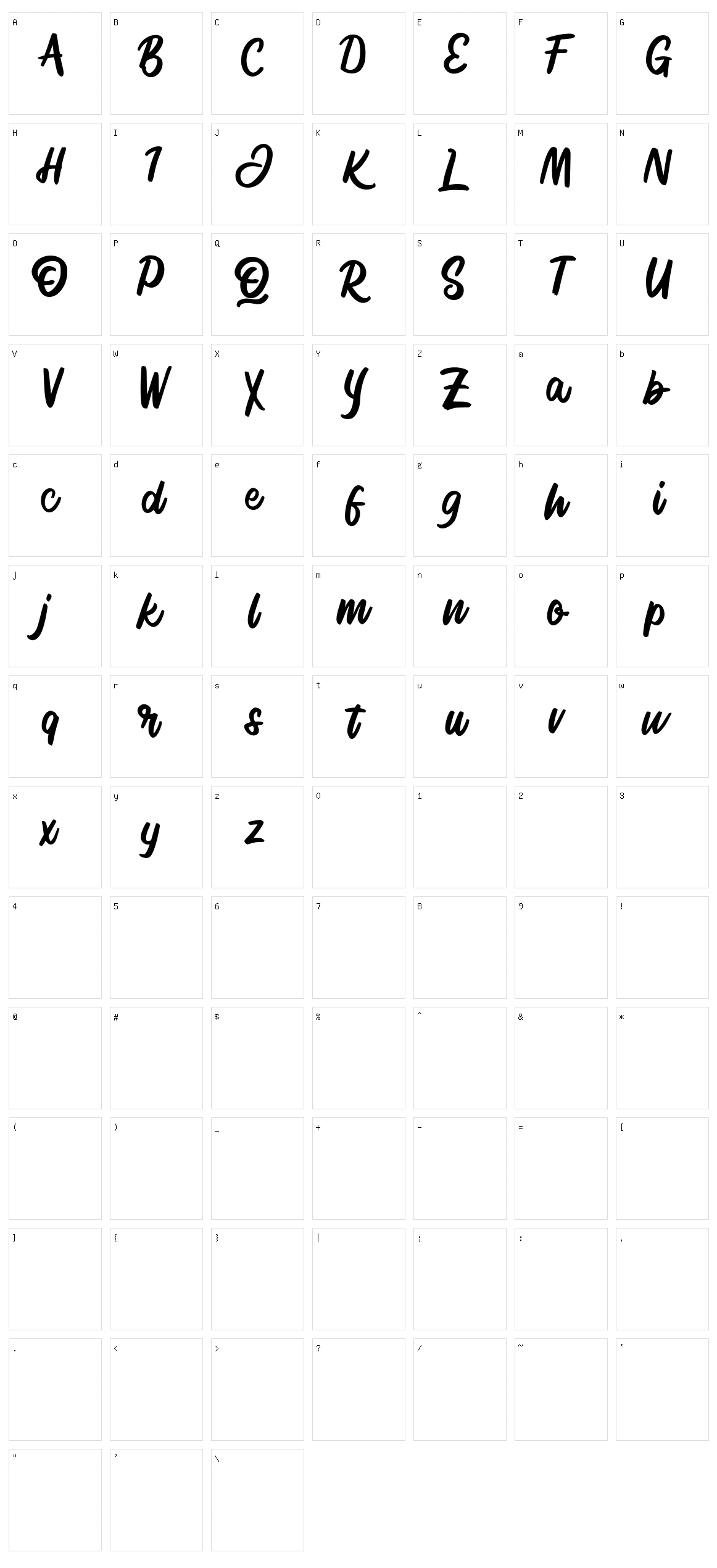
The free font Signlia is carefully designed by Vunira Design, showcasing a thoughtful balance of creativity and usability and falls under the Script font style. When you download the ZIP file, it contains only 41.57 KB of font files, making it lightweight and quick to download. Please review the license details below to understand permitted usage and distribution rights. If license information is not available, we recommend using this font for personal projects only or contacting the author directly for commercial usage permissions.